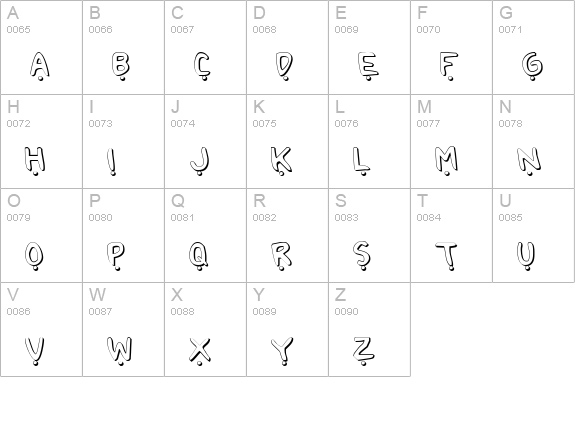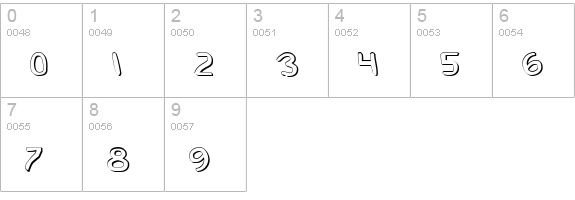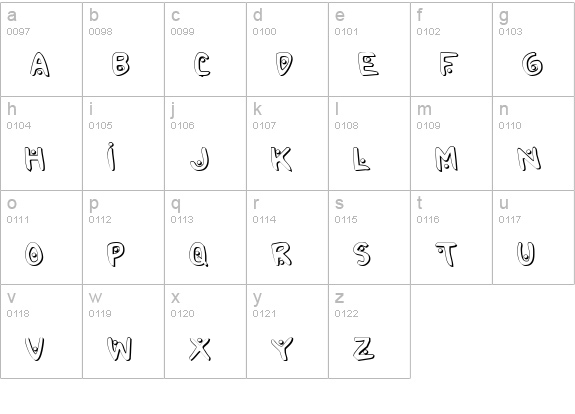
2Toon2 Shadow font is a whimsical and playful typeface that will bring a touch of fun to your projects. This unique font features a shadow effect that adds depth and dimension to your text. The bold and eye-catching design makes it perfect for headlines, posters, and other attention-grabbing designs. The best part? 2Toon2 Shadow font is available for free download at FontsMarket.com. Whether you're working on a personal project or a commercial design, this font is sure to make a statement. So why wait? Download 2Toon2 Shadow font today and add a touch of creativity to your work!